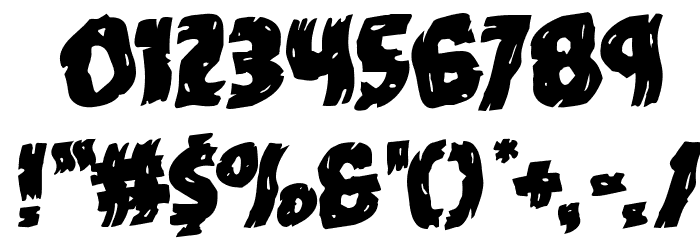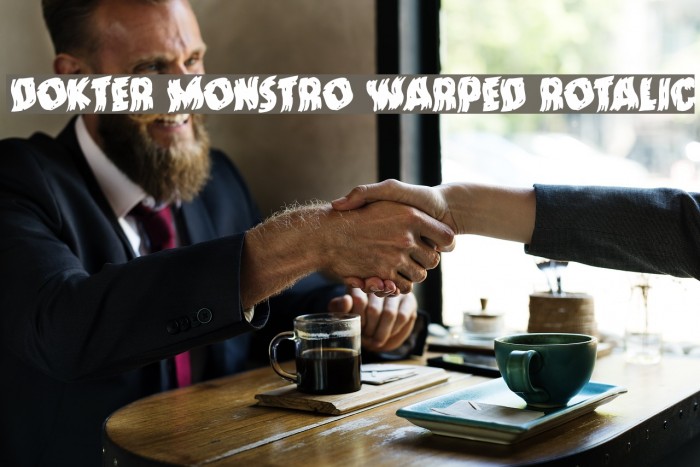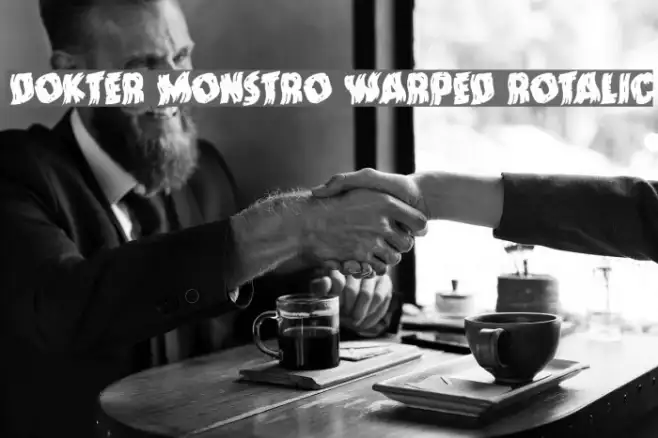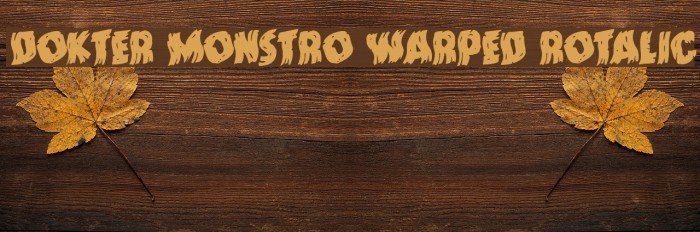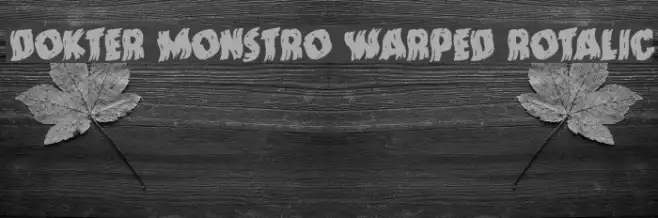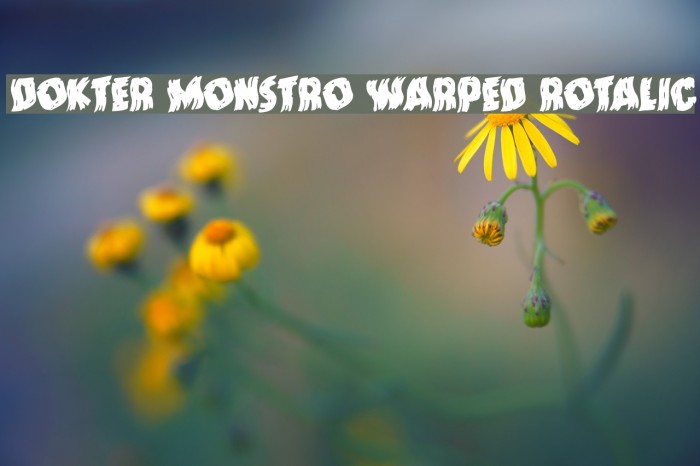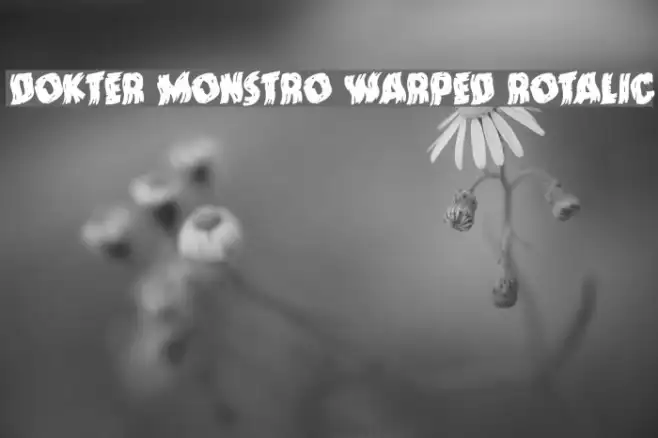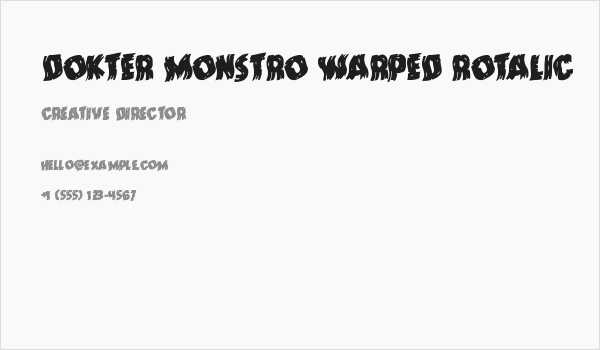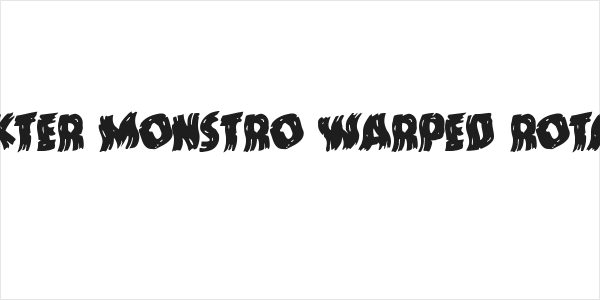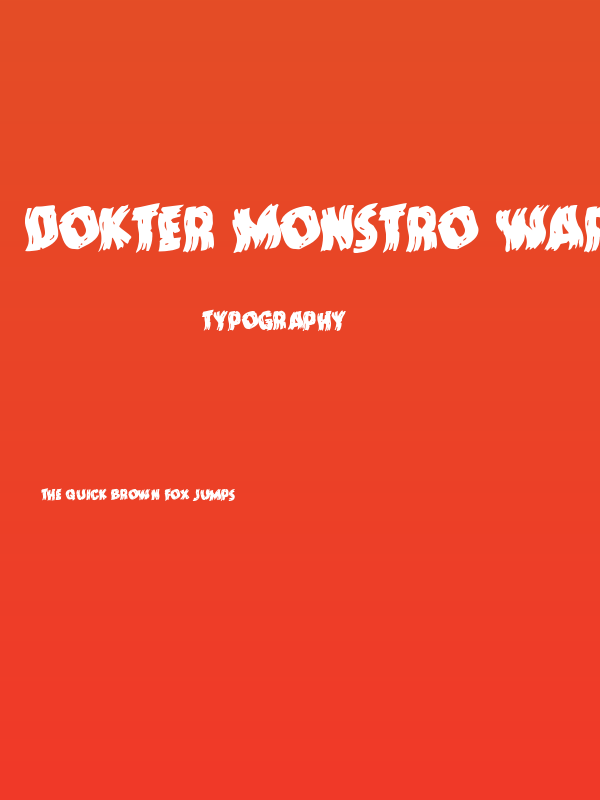
Dokter Monstro Warped Rotalic Font
Dokter Monstro Warped Rotalic Description
This font features a bold and dynamic design with a warped, distorted appearance that gives it a unique and eye-catching style. The characters are heavily stylized with jagged edges and irregular shapes, creating a sense of movement and energy. The uppercase and lowercase letters maintain a consistent style, while the numbers and special characters complement the overall aesthetic. This font is perfect for projects that require a dramatic and impactful visual presence.
| Proposed Projects | Ideal for horror-themed posters, Halloween invitations, edgy branding, and eye-catching headlines. |